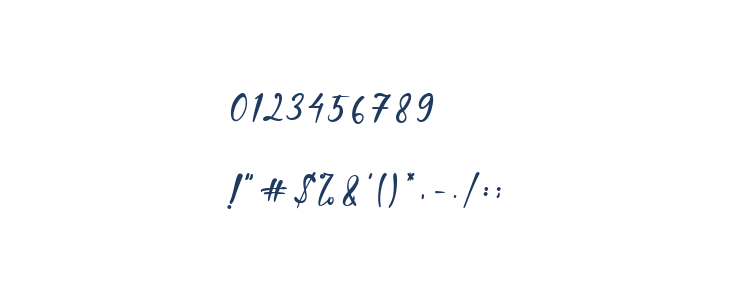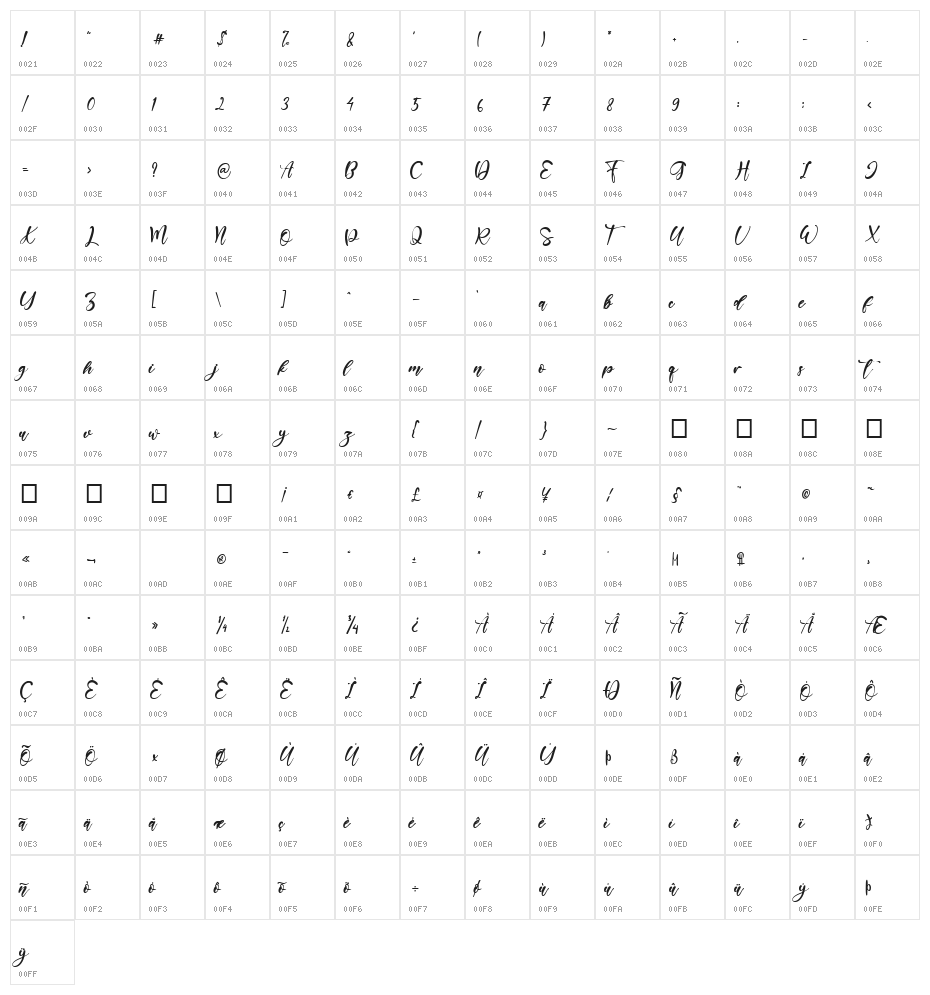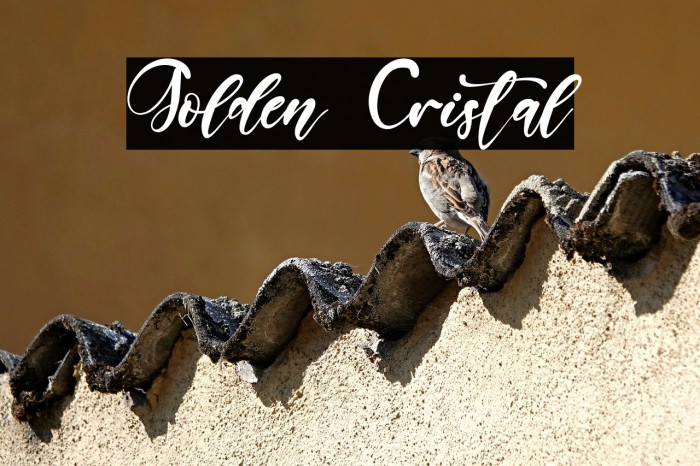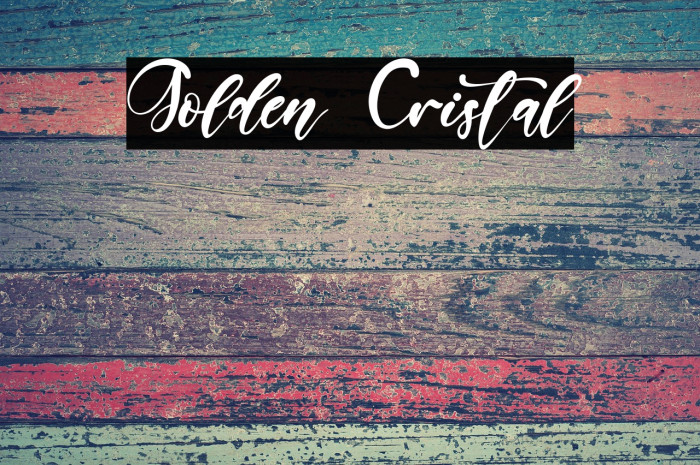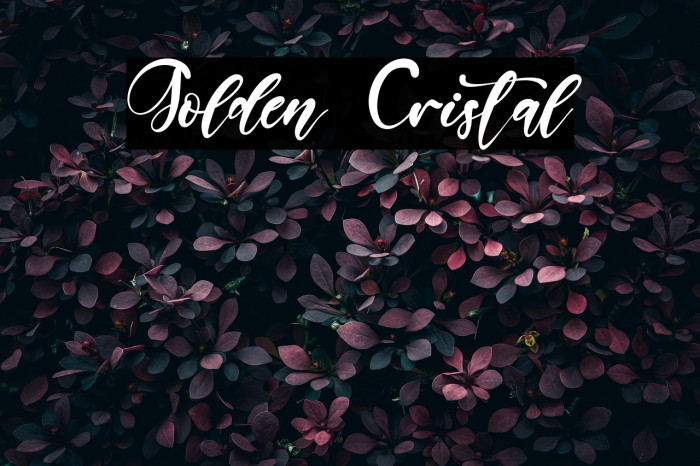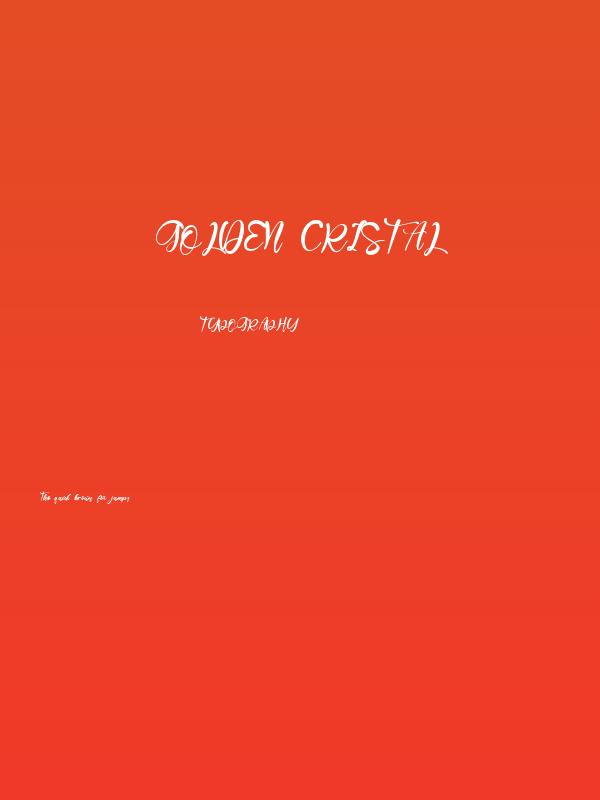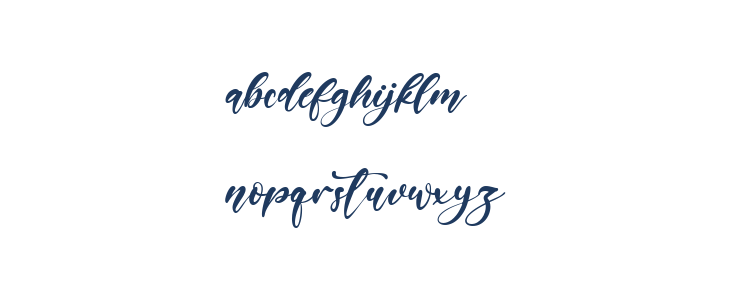
Golden Cristal Font
Golden Cristal Description
This font exudes elegance and sophistication with its fluid, cursive style. The letters are interconnected, creating a seamless flow that is both graceful and dynamic. The uppercase letters are bold and prominent, with intricate loops and swirls that add a touch of flair. The lowercase letters maintain a consistent style, offering a harmonious blend of curves and lines. Numbers are clear and stylish, matching the overall aesthetic. Special characters are thoughtfully designed, complementing the font's artistic nature. This font is perfect for projects that require a touch of luxury and refinement.